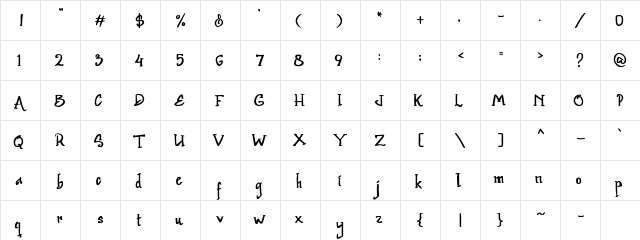
Setter Regular
| Designer | Subectype. 2018 |
Design Context for Setter Typeface
Setter is a composed and adaptable typeface that performs quietly and consistently across a wide range of design contexts.